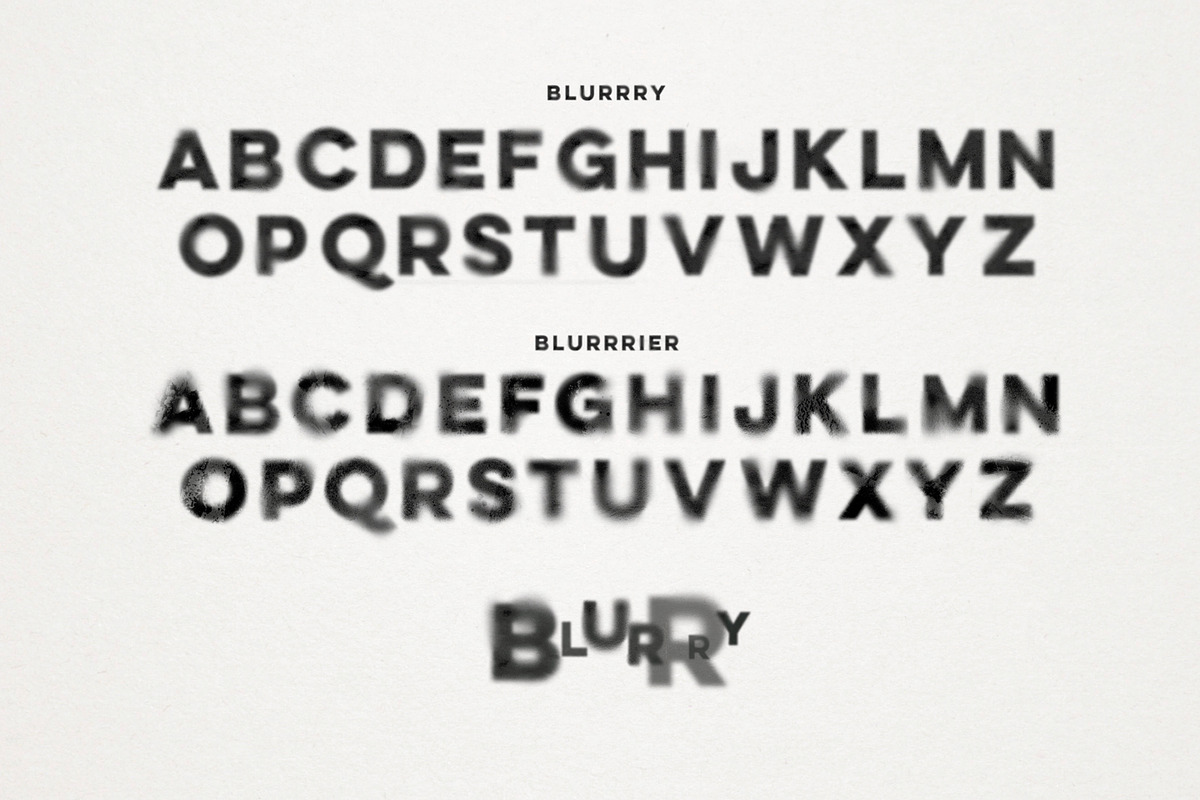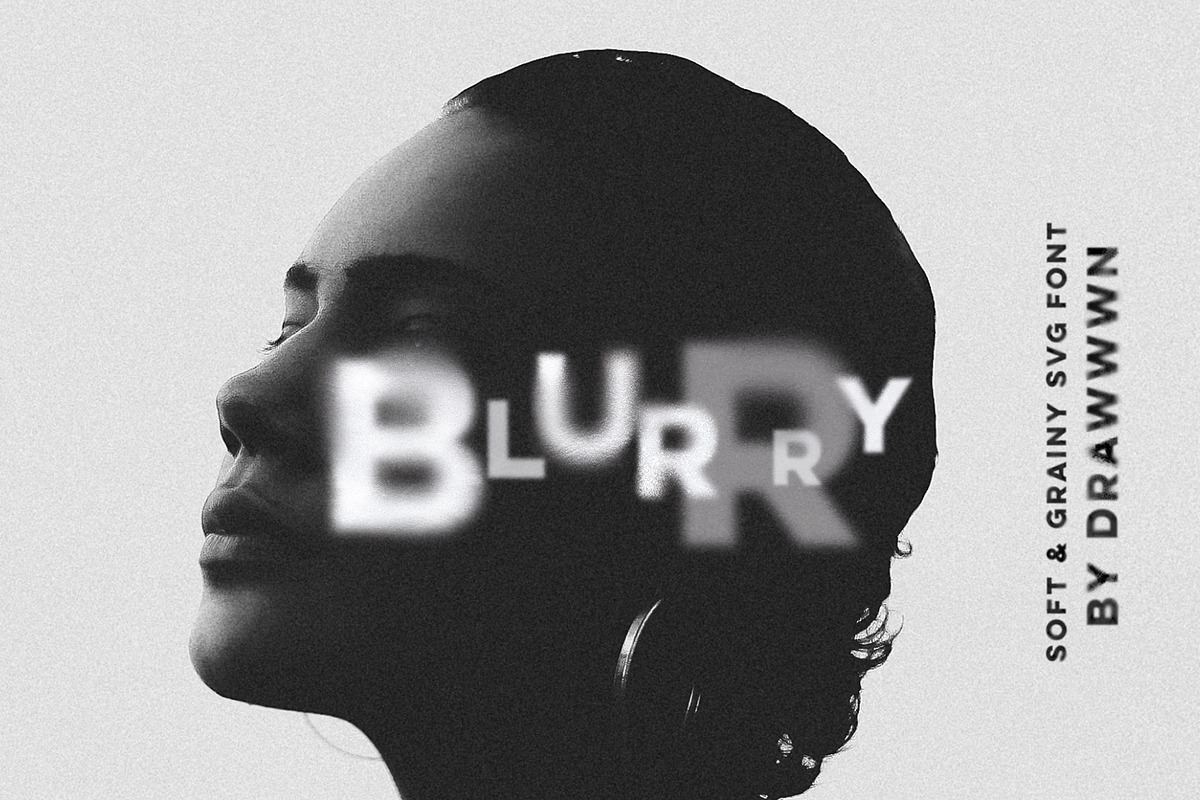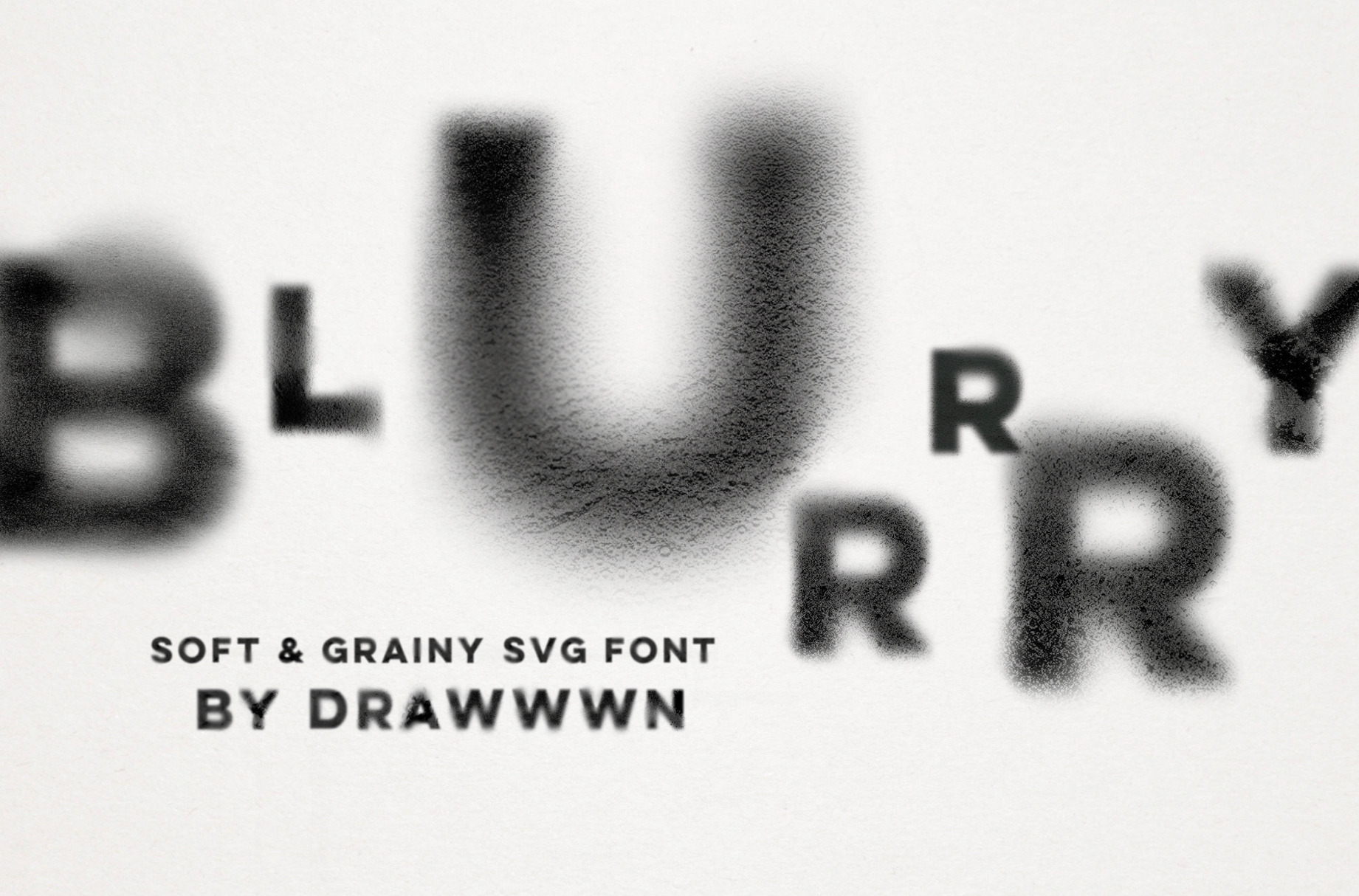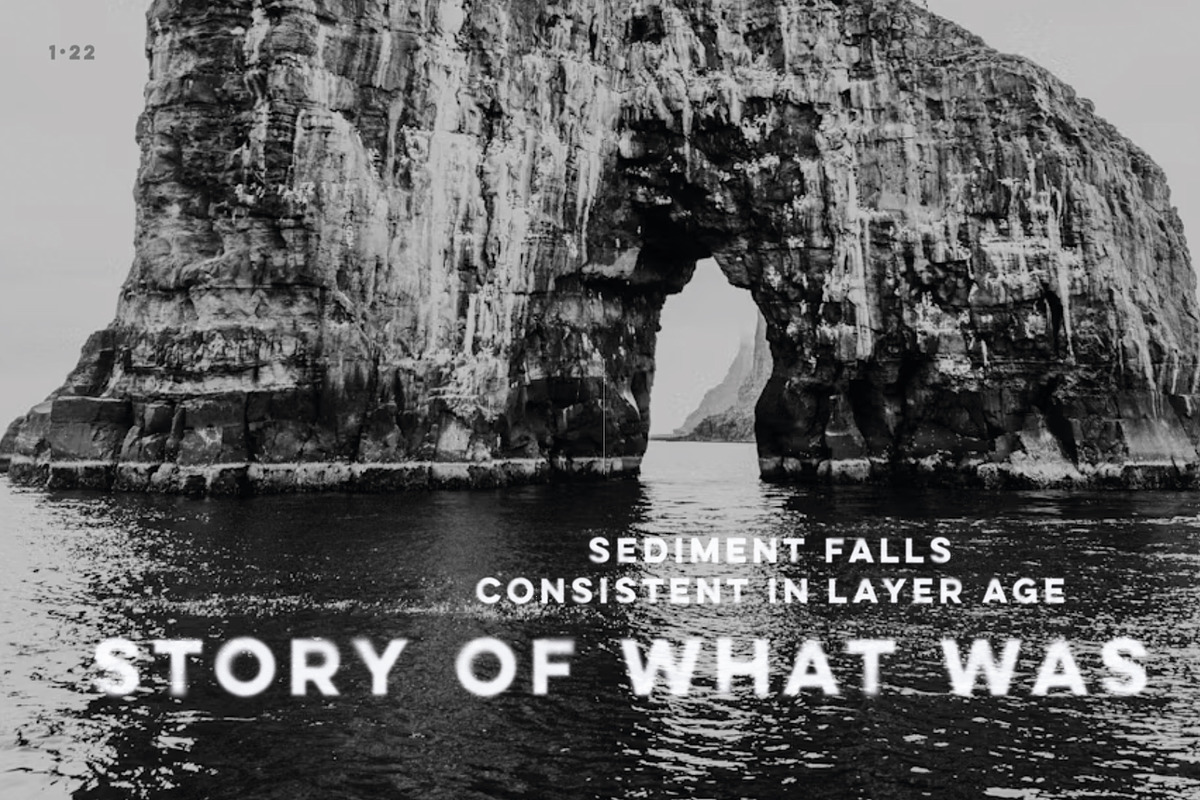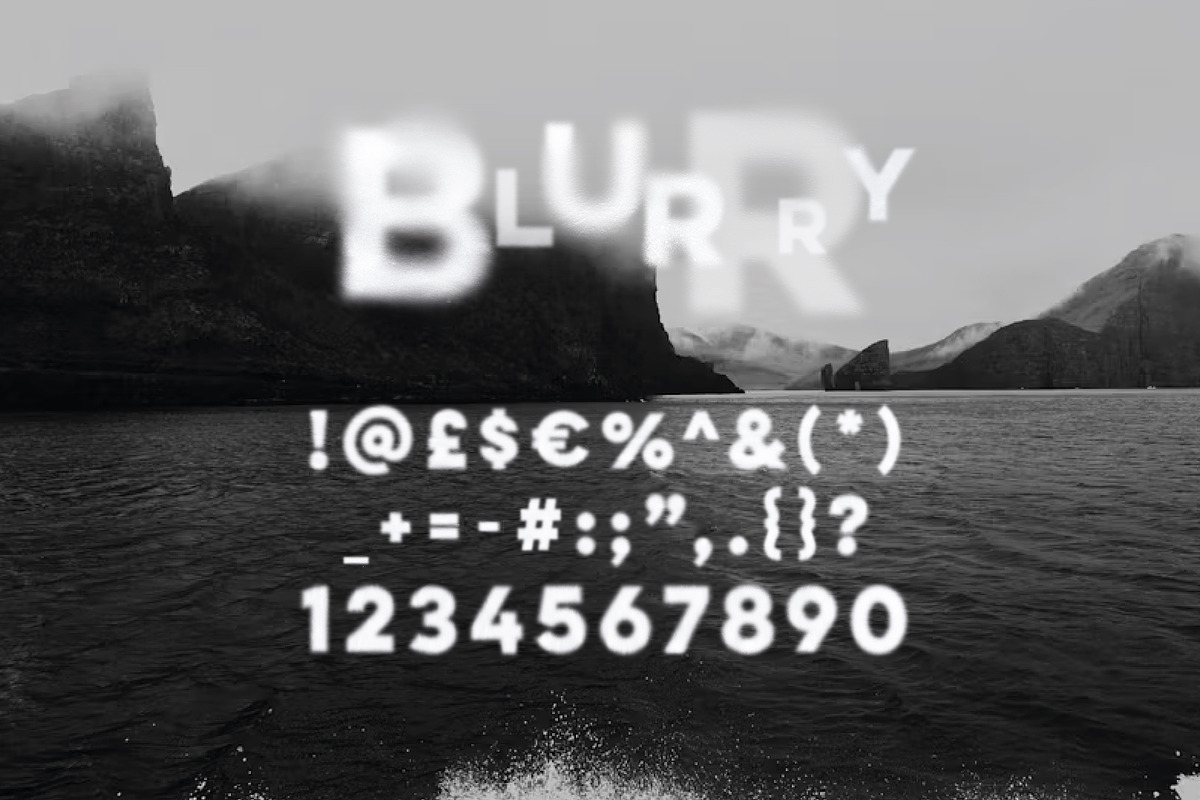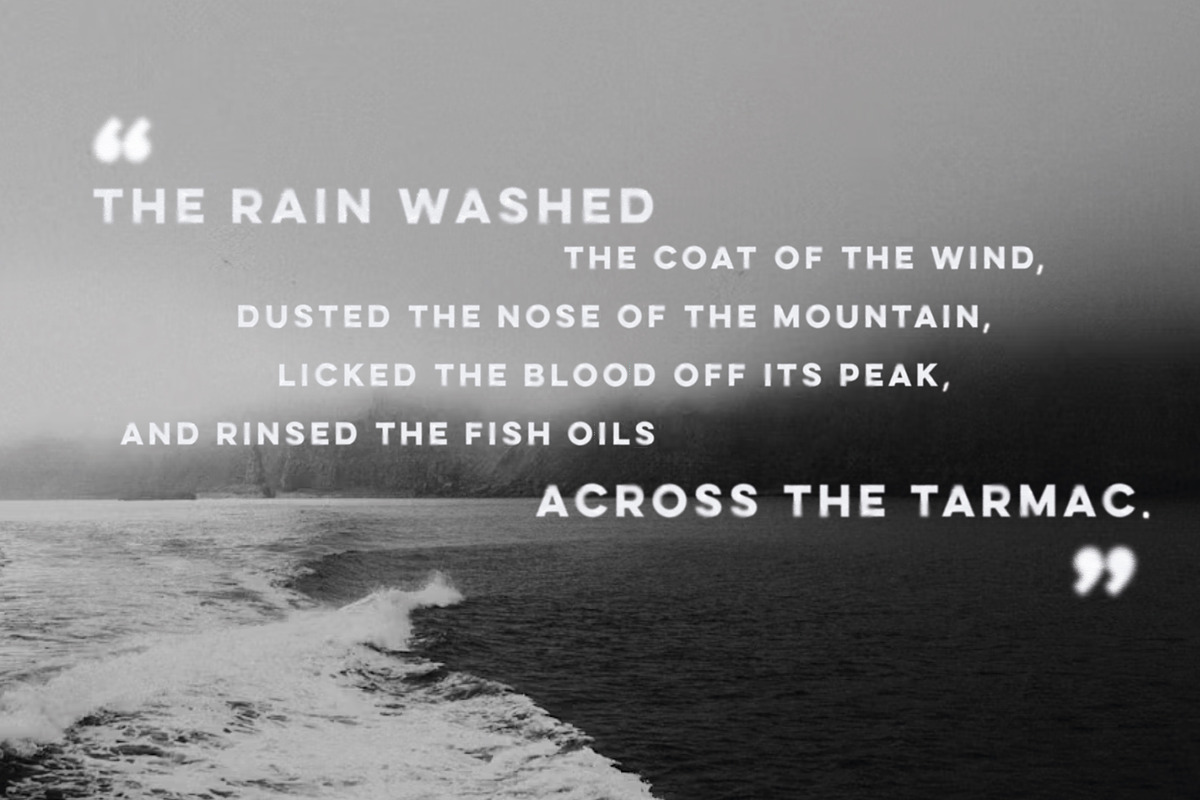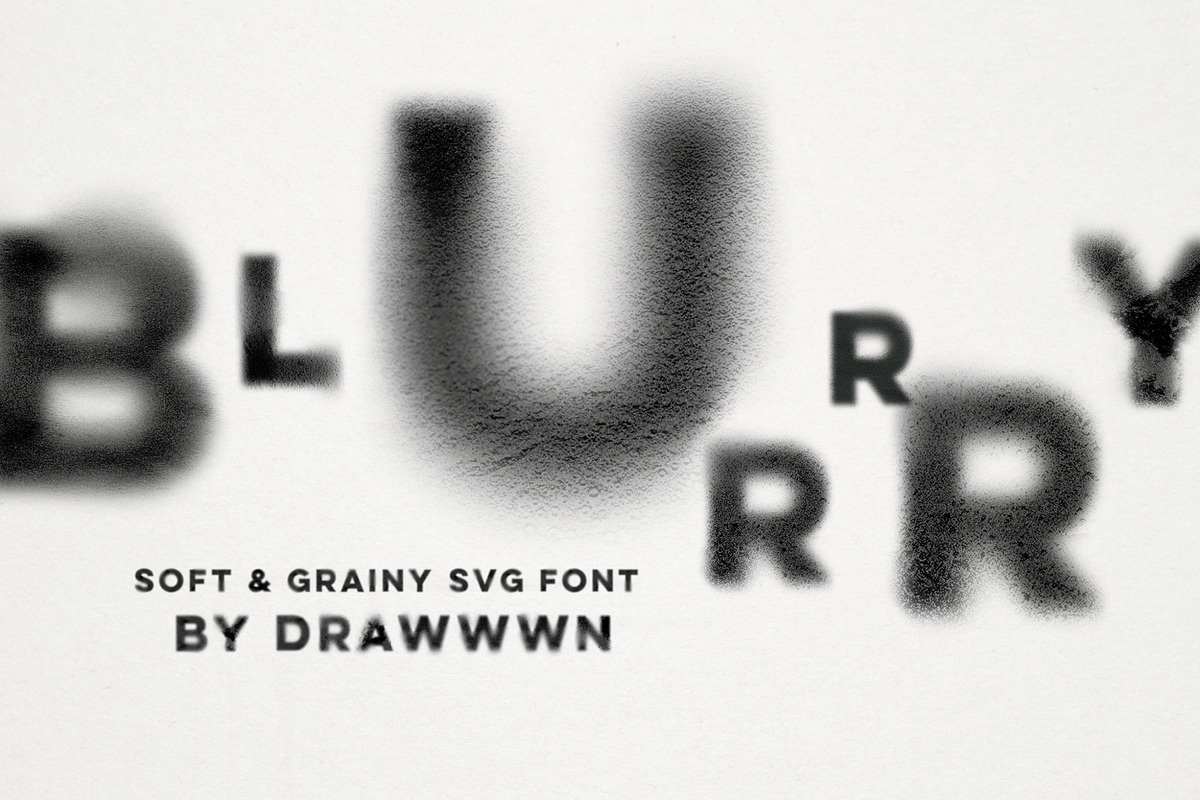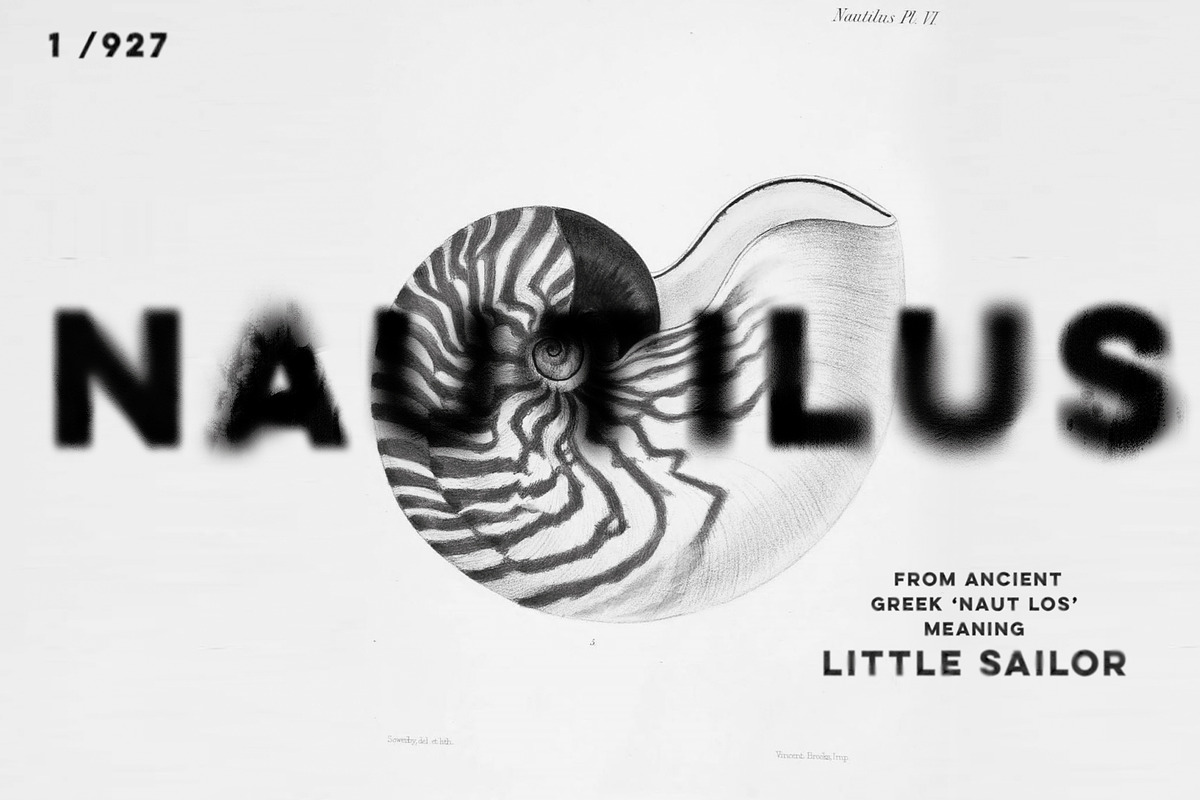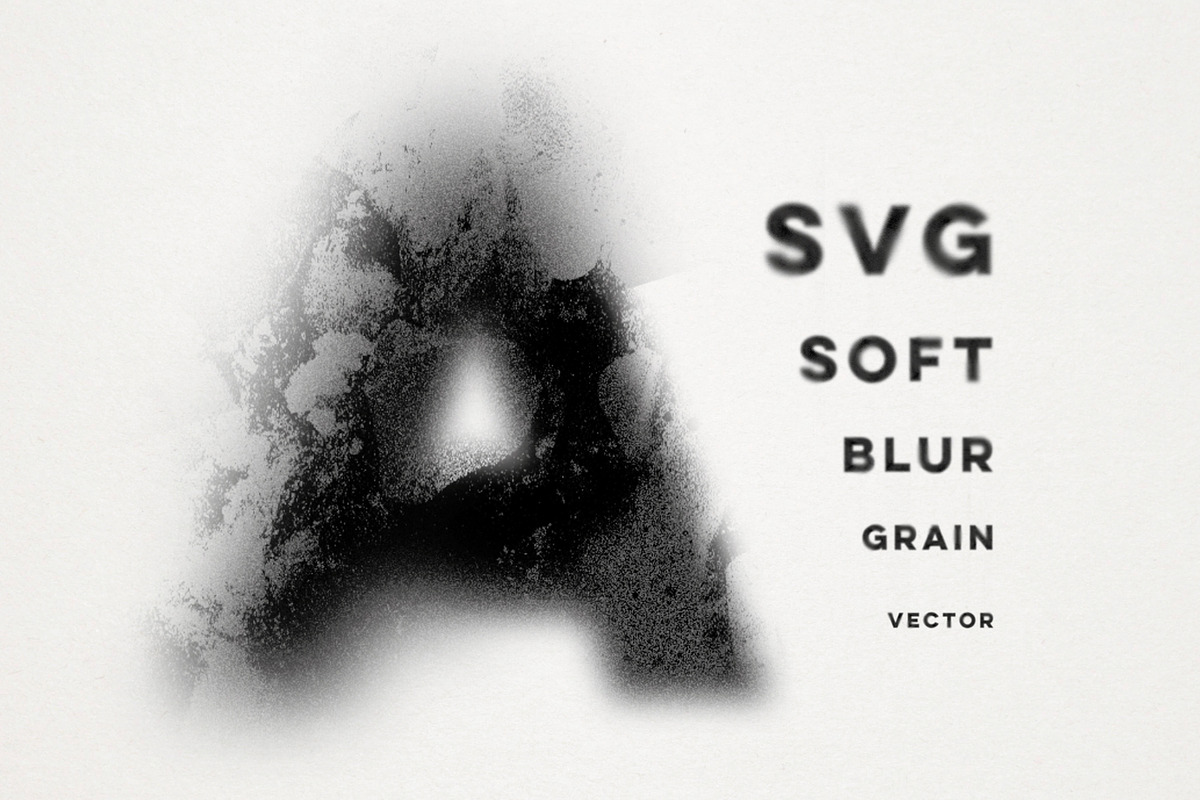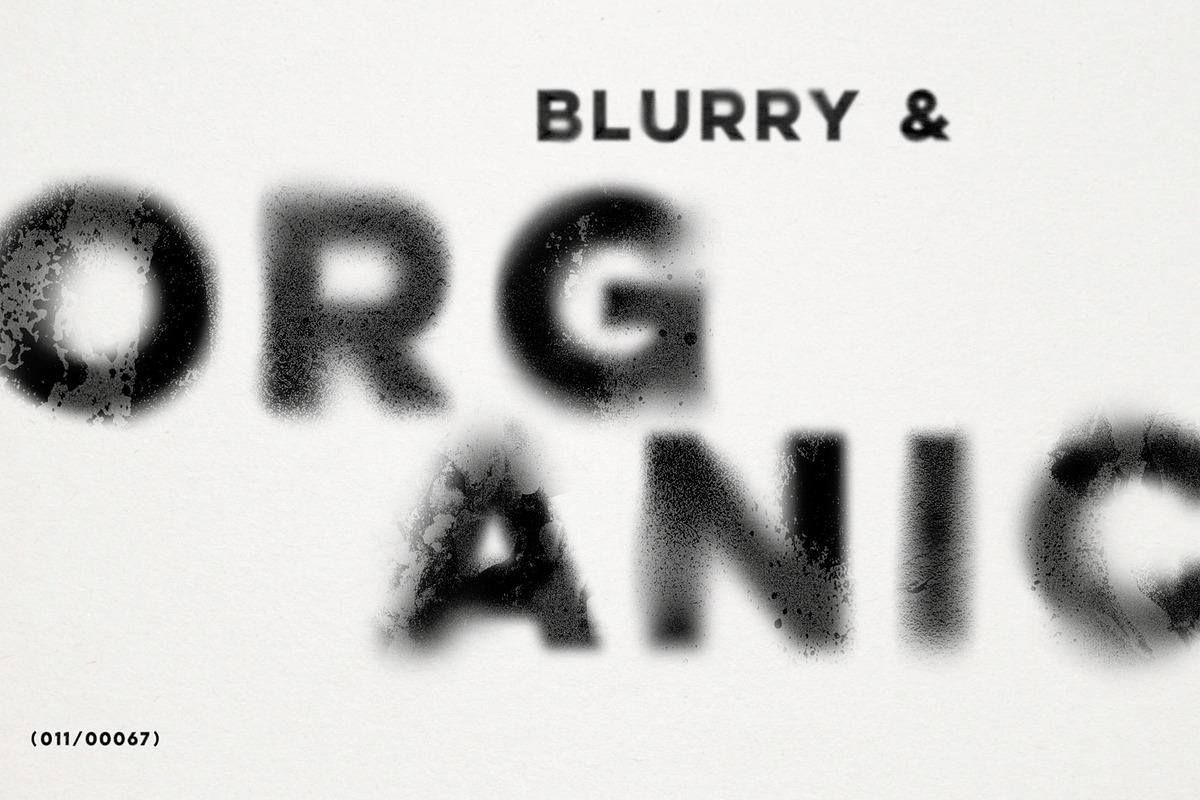
Blurrry | Soft & Grainy SVG font
Blurrry is a soft focus SVG font with added grain. Lowercase is blurry, uppercase is blurrier, with a vintage film quality - get dark and moody.